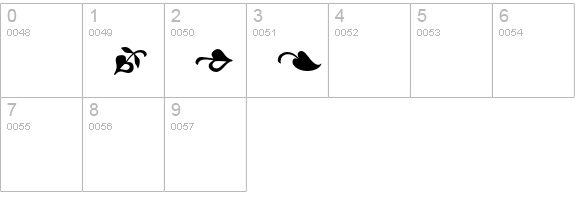
Utopia Ornaments Font Details
Utopia Ornaments is an exquisite and elegant font that adds a touch of sophistication and charm to any design project. With its intricate details and delicate curves, this font is perfect for creating stunning and eye-catching ornaments, embellishments, and decorative elements. The Utopia Ornaments font is meticulously crafted with care and precision, making it a true masterpiece of typography. Each character is beautifully designed, showcasing a harmonious blend of classic and contemporary styles. From swirls and flourishes to intricate patterns and motifs, this font offers a wide range of decorative options to elevate your designs. One of the most remarkable aspects of Utopia Ornaments is that it is freely available for download at FontsMarket.com. This means that you can enhance your creative projects without any additional cost. Whether you are a professional designer or an aspiring artist, this font allows you to freely explore your creativity and bring your vision to life. Utopia Ornaments is incredibly versatile, making it suitable for a variety of design projects. It can be utilized in invitations, wedding stationery, logos, branding materials, packaging, posters, and more. Its timeless elegance and intricate details instantly add a touch of sophistication and refinement to any design. When using Utopia Ornaments, you will appreciate its exceptional legibility and readability, ensuring that your message is conveyed effortlessly. The carefully crafted characters ensure that every stroke feels seamless, creating a visually pleasing and harmonious composition. In conclusion, Utopia Ornaments is an exceptional font that combines elegance, sophistication, and versatility. With its intricate details and timeless appeal, it is a valuable addition to any designer's toolkit. Best of all, it is freely available to download at FontsMarket.com, allowing you to enhance your creative projects without any constraints.